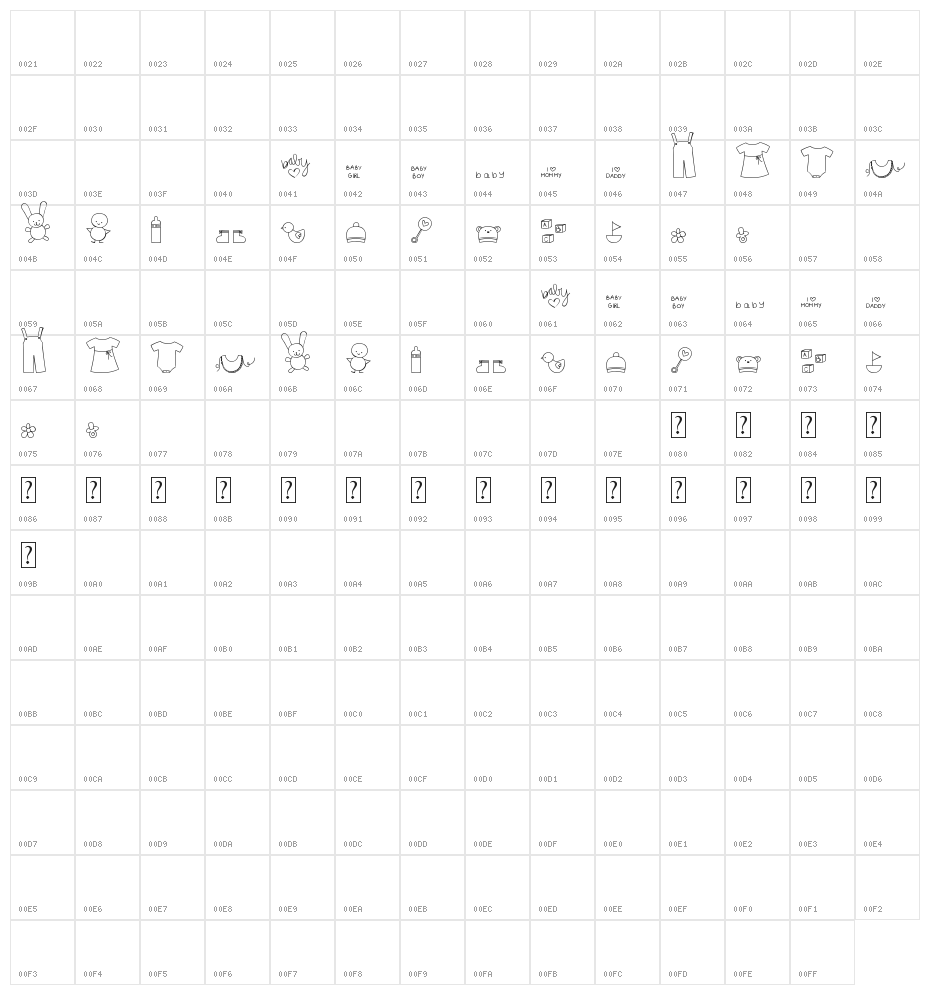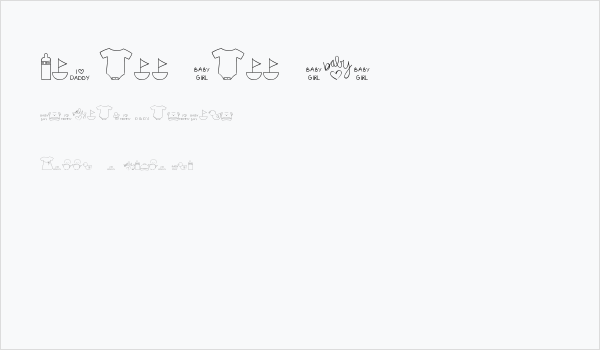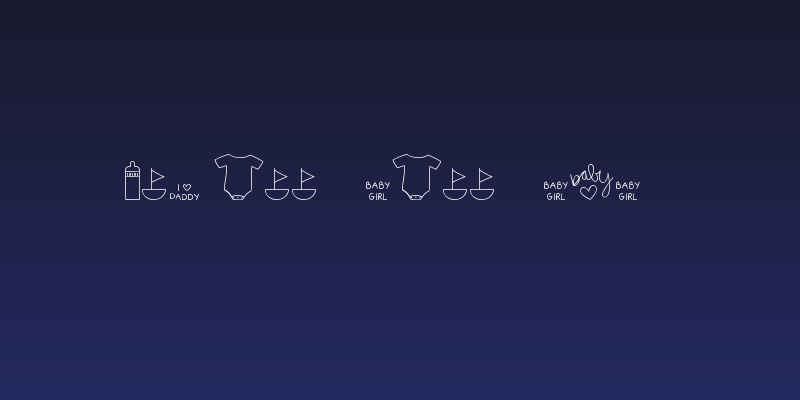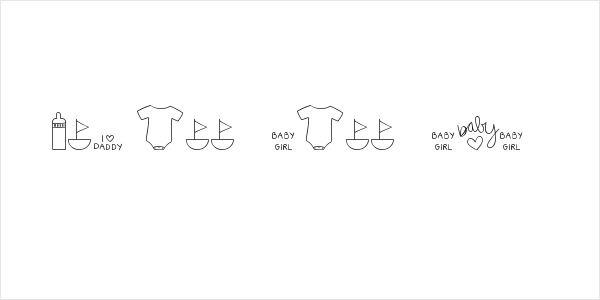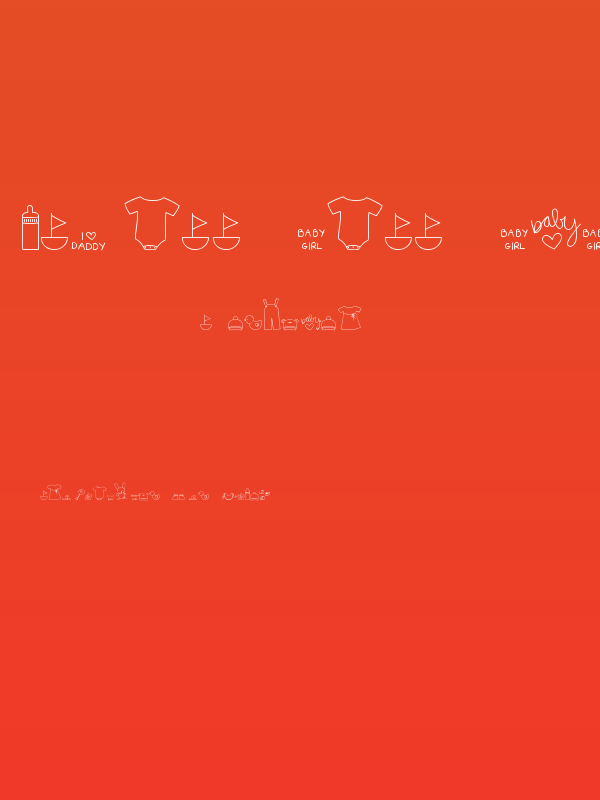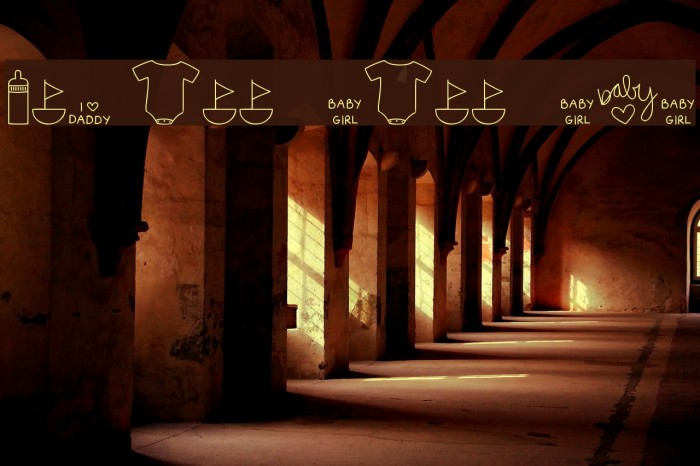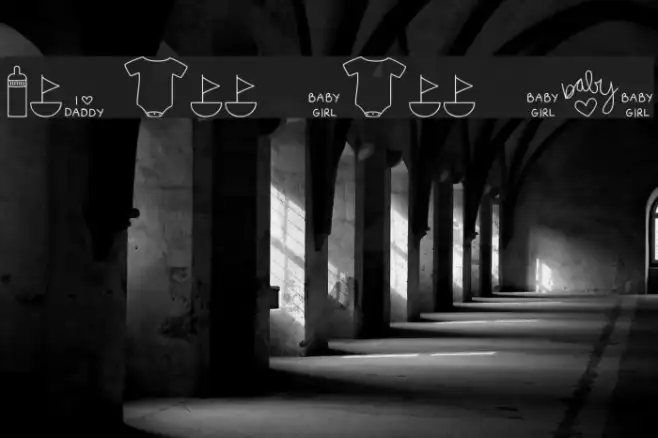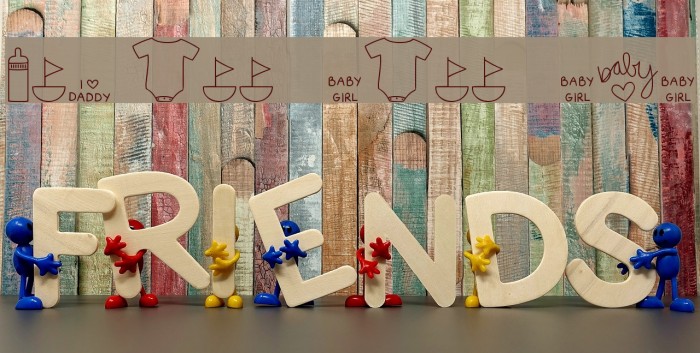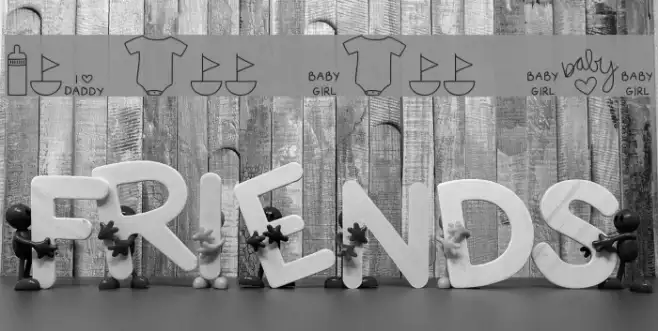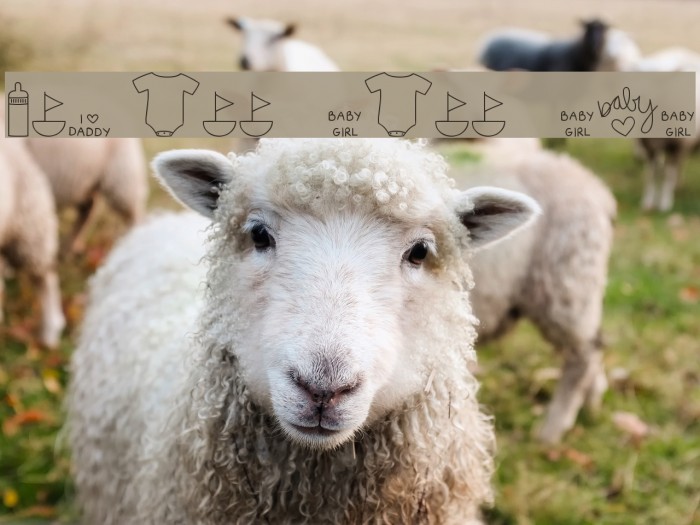
MTF Itty Bitty Baby Font
| Stile generale | Whimsical |
| Caso d'uso | Decorative elements, Invitations, Children's materials |
| Progetti proposti | Ideal for baby shower invitations, children's books, nursery decor, and playful branding projects. |